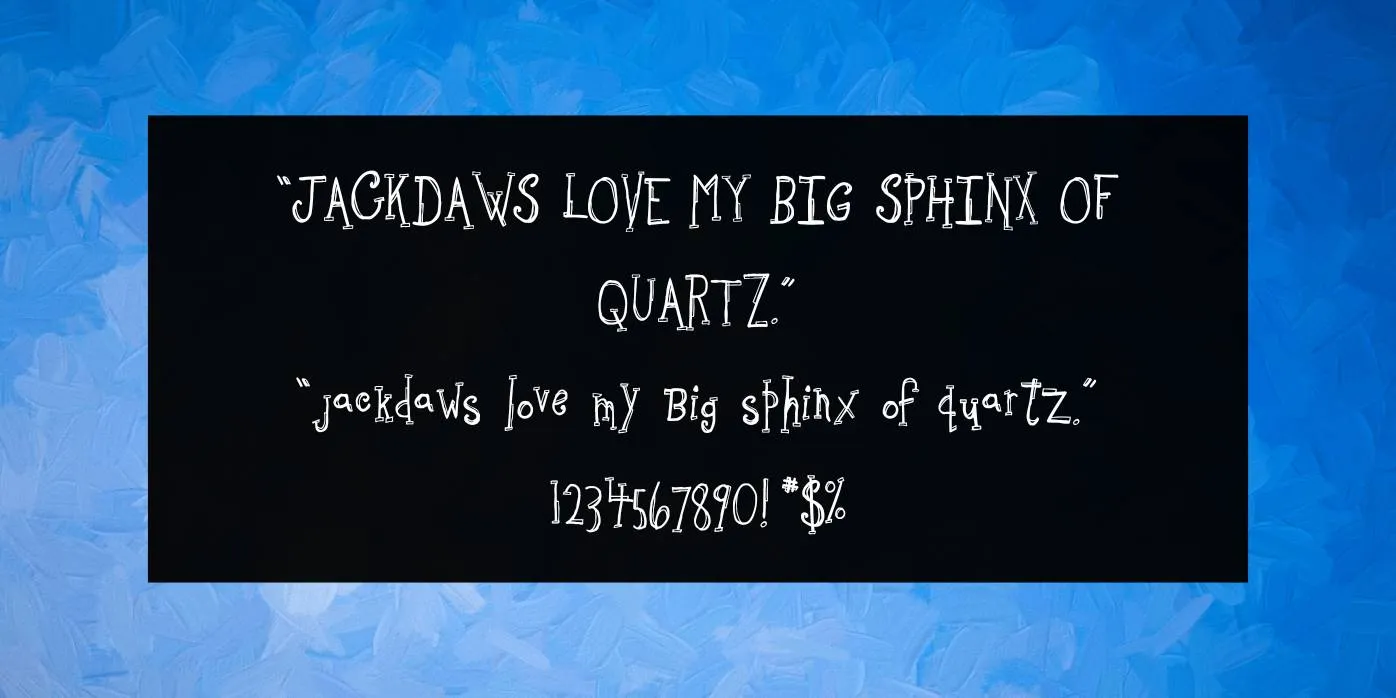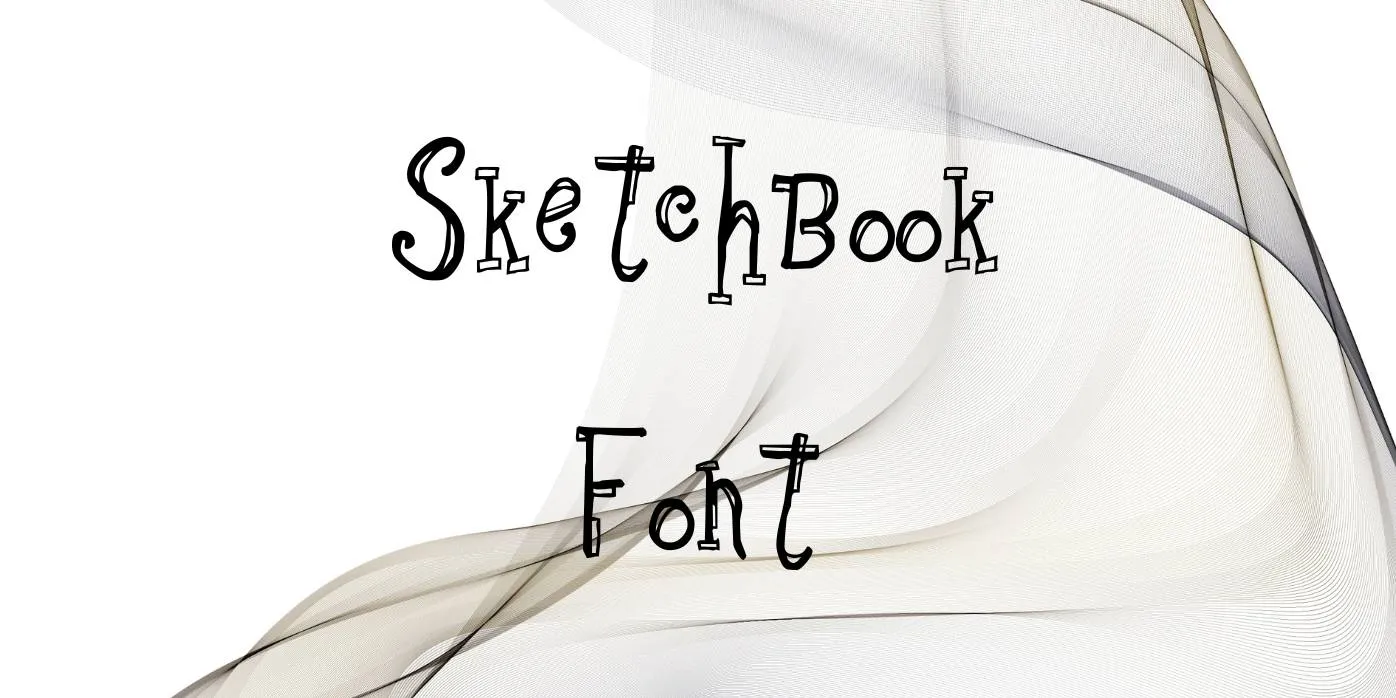
Sketchbook Font
Sketchbook Font is a cartoon type of font. UnAuthorized Type is the designer of this amazing cartoon texture. The characters of this typeface are amazing and stunning. They are stylish and can meet the needs of various fancy projects. There are 172 unique glyphs for this typeface.